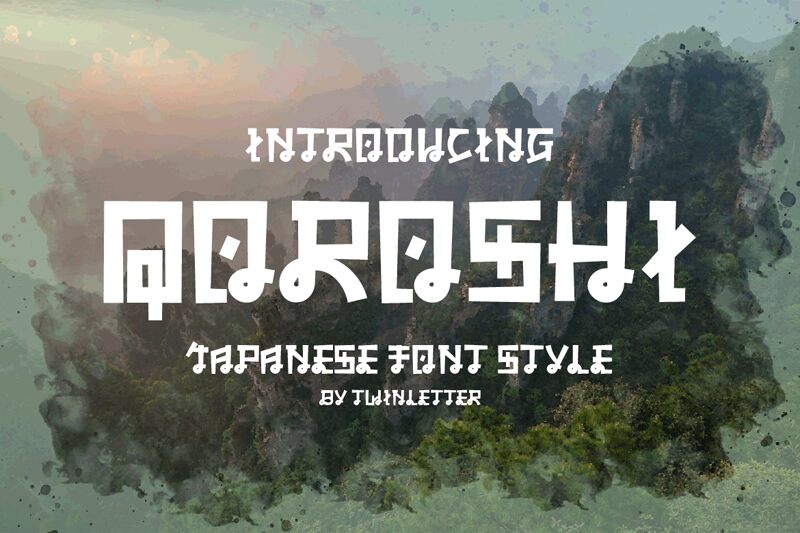
QOROSHI, designed by Murozakul Akhsan, is a bold Japanese-style font perfect for projects that demand an eye-catching, unique aesthetic. It is great for logos, posters, and other creative designs seeking a modern twist on traditional oriental themes.